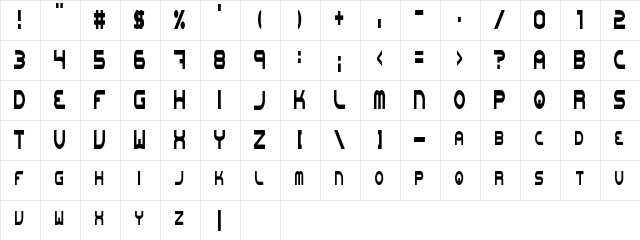
Oneworldonefuture Light
Design Context for Oneworldonefuture Typeface
Oneworldonefuture channels digital-age aesthetics through its sharp, structured letterforms — ideal for brands that want to signal innovation. Its slender proportions lend an understated elegance to any composition.